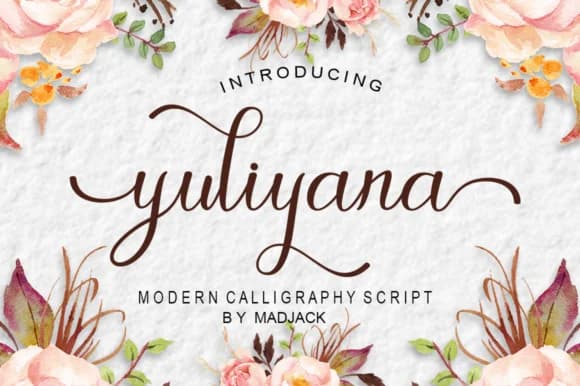
Yuliyana Script Font by madjack.font is a contemporary calligraphy script distinguished by flowing letterforms and refined swashes. This typeface brings a personalized, handcrafted aesthetic to projects across multiple creative disciplines. The script truly shines when applied to luxury wedding invitations, high-end greeting card suites, boutique cosmetics packaging, and custom stationery designs where sophisticated letterforms create lasting visual impressions.
The carefully crafted strokes and graceful flourishes deliver an upscale, artisanal quality that resonates strongly with audiences seeking authenticity in their designs. Yuliyana adapts beautifully across diverse applications, from large display sizes in engagement announcements and fine art prints to refined product labels and packaging text. The typeface's natural flow and rhythm make it equally suitable for formal occasions and contemporary brand identities. Its carefully balanced letterforms ensure readability while maintaining the sophisticated character that distinguishes premium design work from ordinary applications.
Yuliyana Script Font is a script font that shines as a display or heading face. Pair it with a clean sans-serif or serif font for body text β the contrast creates a clear hierarchy while the two styles stay balanced and easy to read.